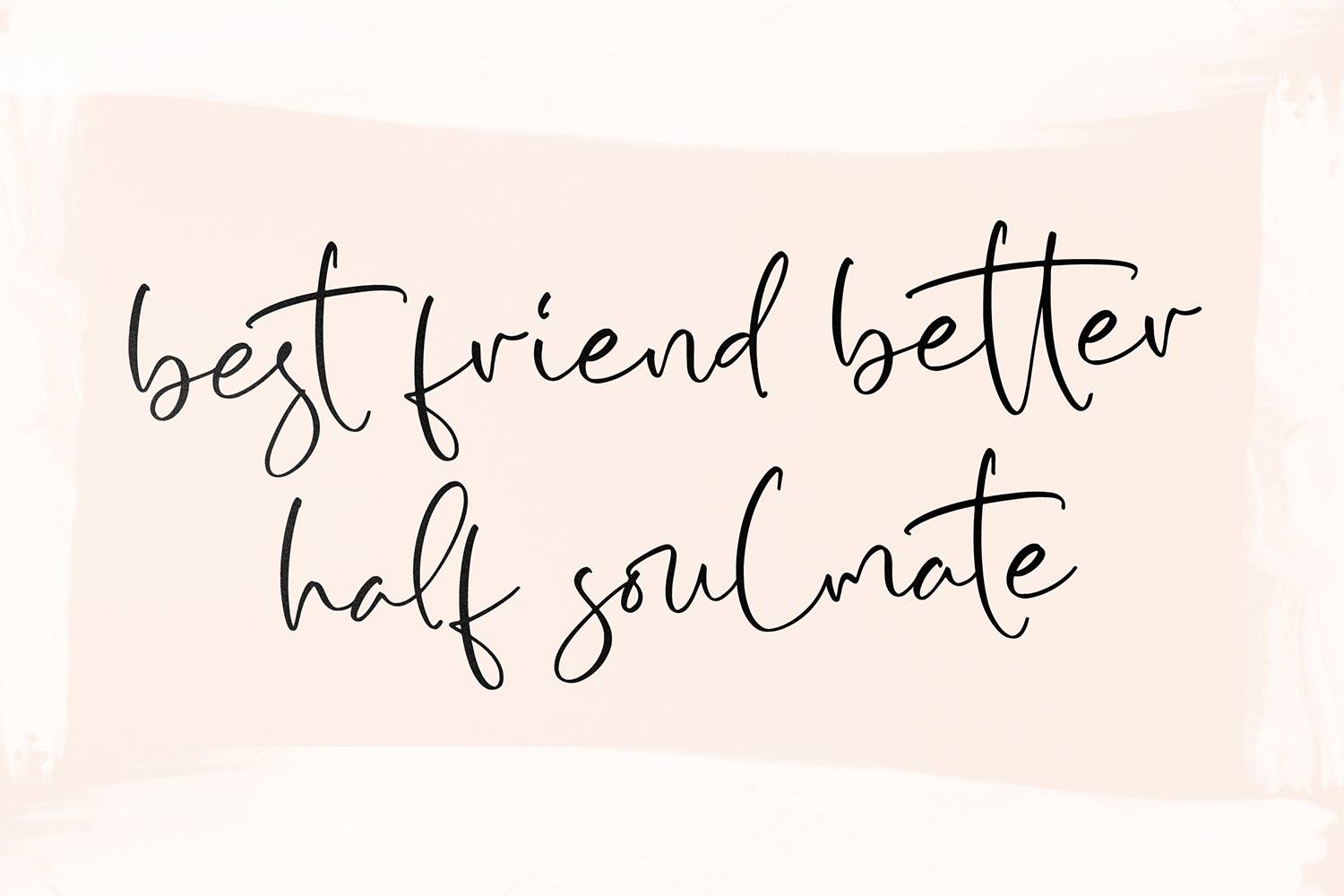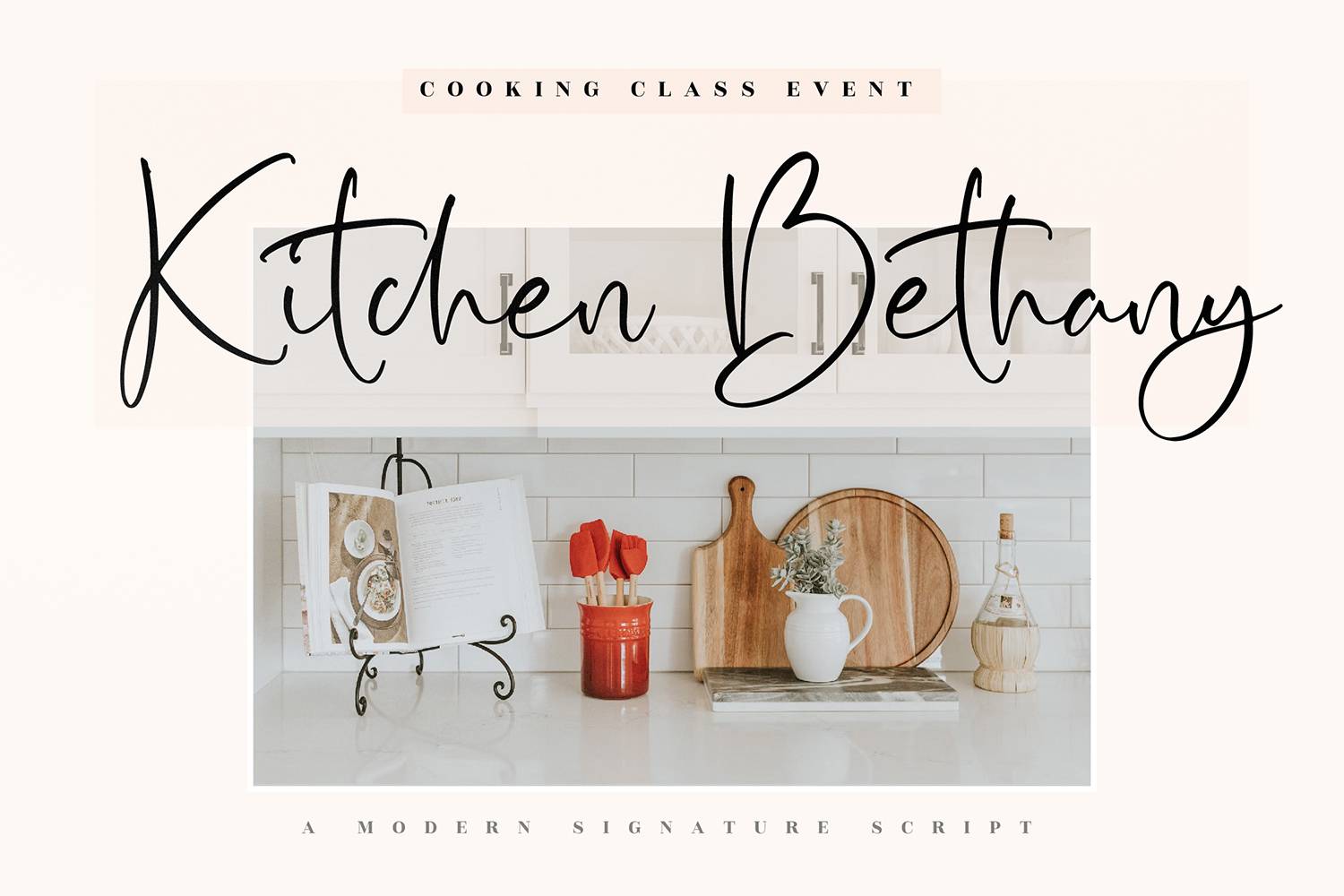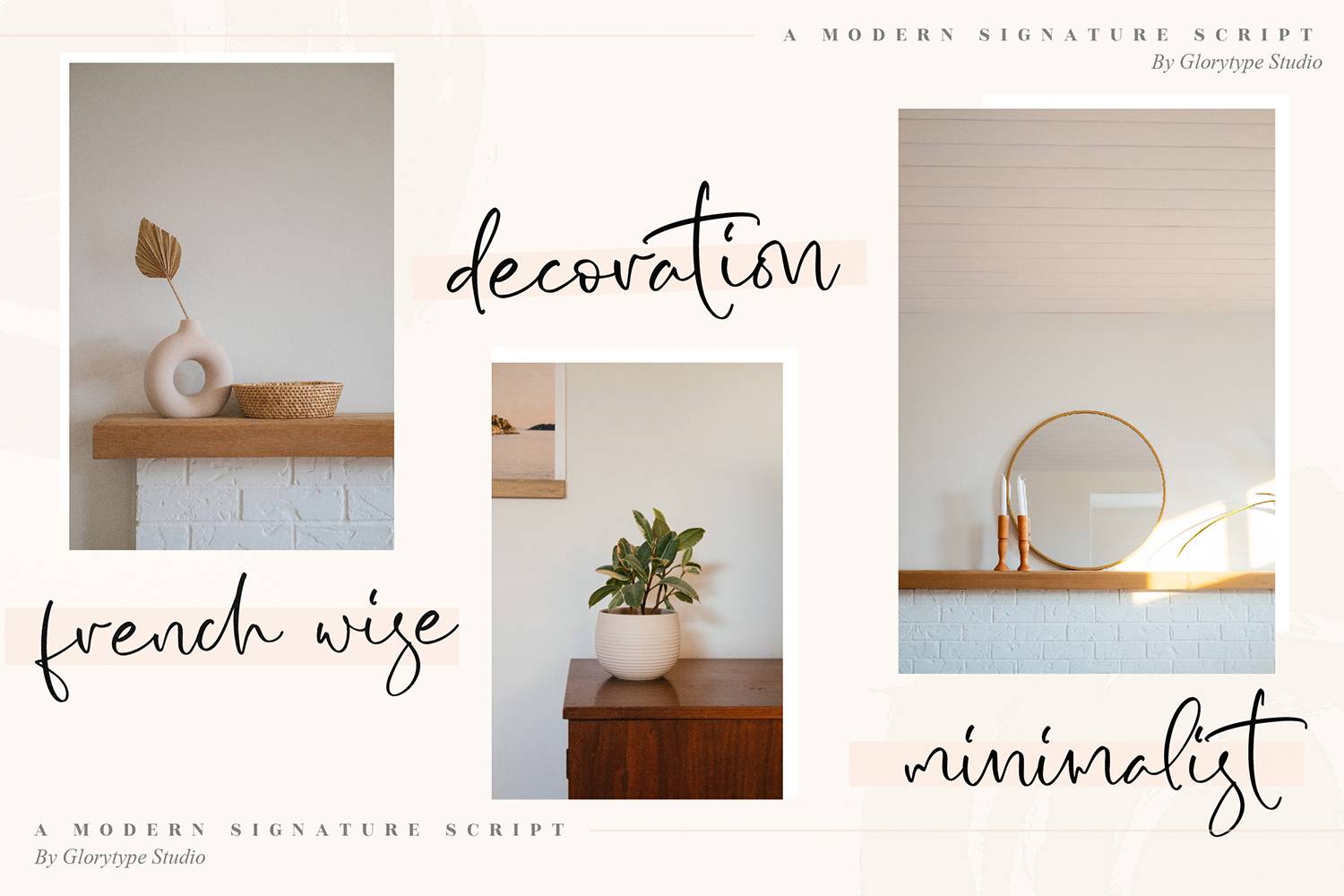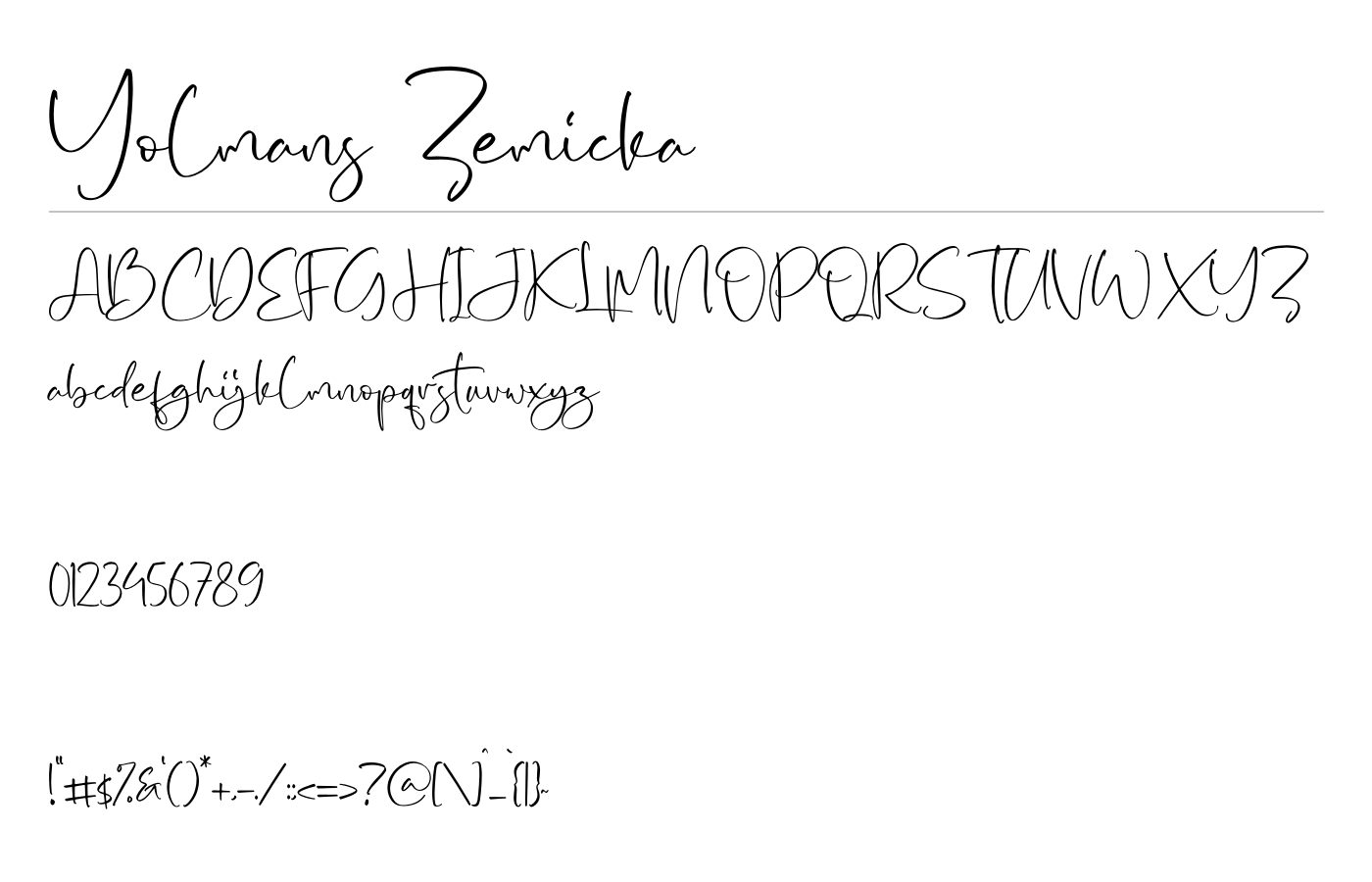
Yolmans Zemicka is a delicate, hand-drawn script font with a whimsical and airy feel. Its thin, flowing lines and distinctive, playful letterforms give it a personal, artistic touch that works beautifully for invitations, branding, and creative projects seeking a light, elegant charm. This font shines in designs that want to convey creativity and warmth with a modern yet relaxed style.
Yolmans Zemicka Font
About Yolmans Zemicka Font